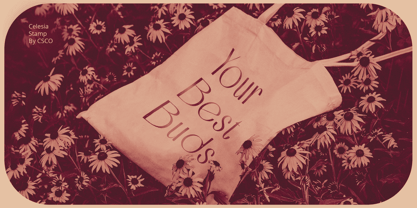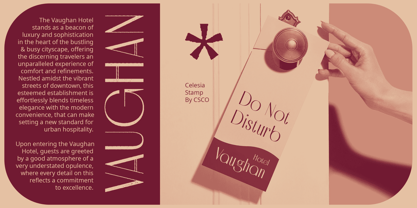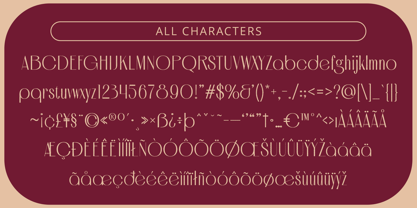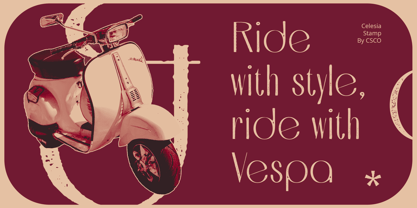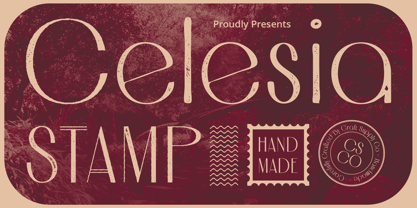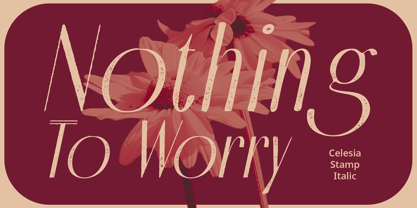
Celesia Stamp
by Craft Supply Co
The Celesia Stamp Font Family was designed by Trio Nazzar Saputra, Wahyu Hadi Yuana and published by Craft Supply Co. Celesia Stamp contains 2 styles and family package options. More about this family
Celesia Stamp: Vintage Art Deco Revival
Art Deco Inspiration
Celesia Stamp draws inspiration from the iconic Art Deco movement, renowned for its geometric shapes and bold lines. This font captures the essence of Art Deco’s timeless elegance.
Distinctive Sans Serif Design
With its sleek sans serif structure, This font exudes a contemporary vibe while paying homage to the retro charm of Art Deco. Its clean lines and sharp edges command attention.
Vintage Stamp Effect
Adding a touch of nostalgia, This font features a unique stamp effect that imbues the font with a vintage aesthetic. Each character bears the impression of authenticity, reminiscent of bygone eras.
Perfect for Display Use
Tailored for display purposes, This font is ideal for projects requiring a bold and eye-catching typography. From posters to packaging, its Art Deco-inspired design makes a statement in any context.
Retro Elegance Redefined
This font offers a fresh take on vintage typography, blending Art Deco influences with modern design sensibilities. Its distinctive sans serif style and vintage stamp effect make it a standout choice for display projects seeking to evoke nostalgia and sophistication. Step back in time with This font and add a touch of retro elegance to your designs.